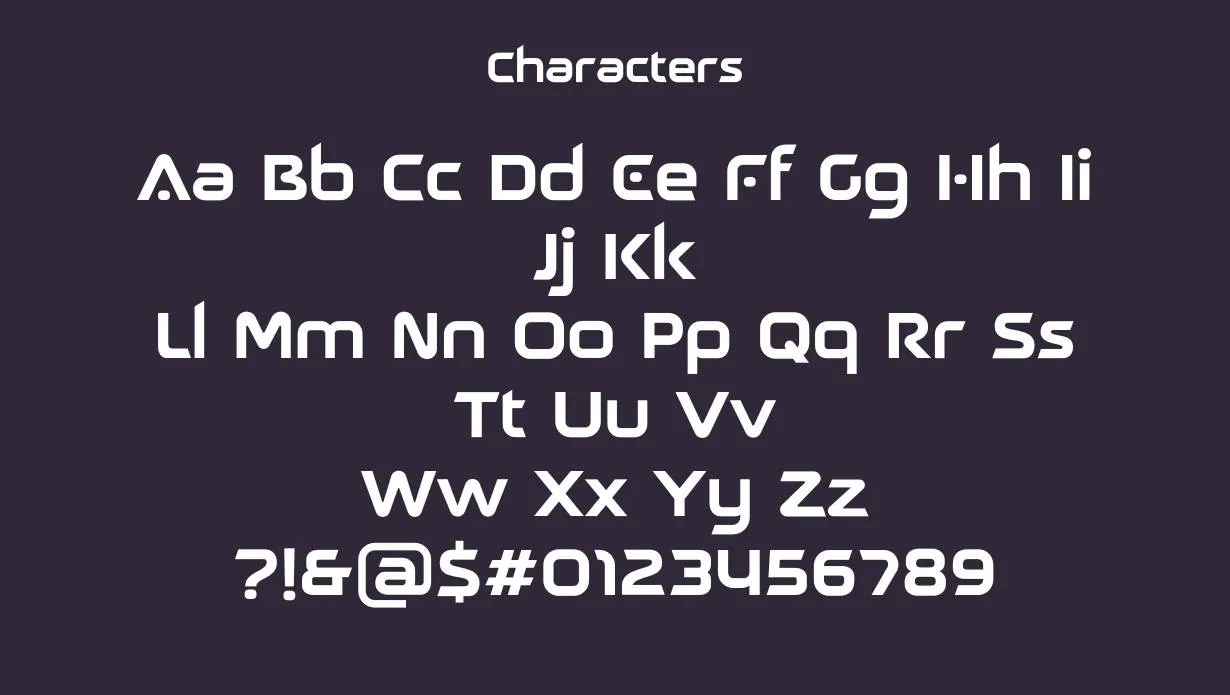
Automata, designed by the visionary typographer Sebastian Moderna, is a font that falls into the category of modern and minimalist sans-serif typefaces. Moderna, renowned for his clean and contemporary design sensibilities, has created a font that embodies simplicity and versatility.
The Automata font is an excellent choice for projects that demand a clean and modern aesthetic, such as corporate branding, web design, or any application where a sleek and straightforward approach is desired.
| Designer | Enrico Sogari |